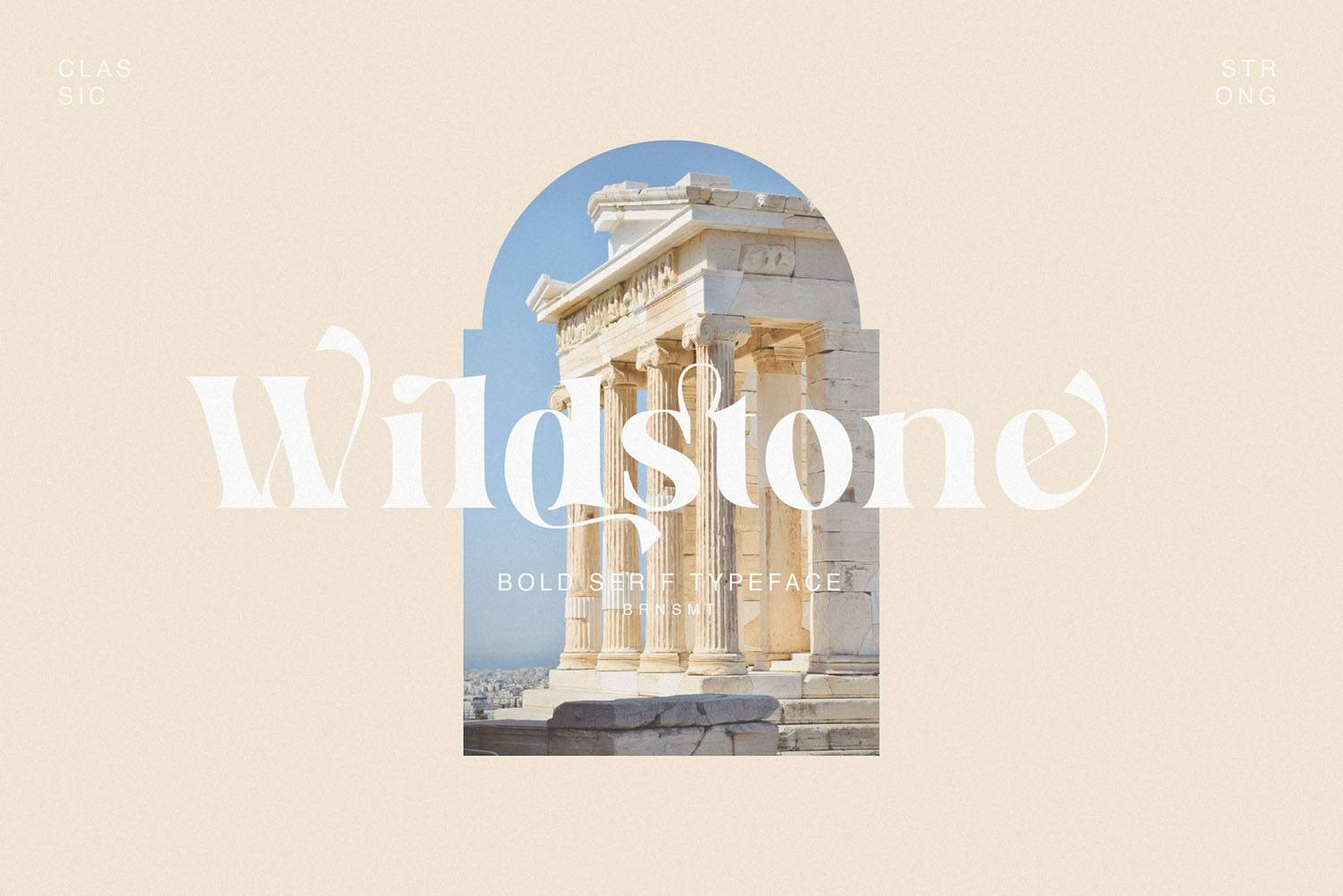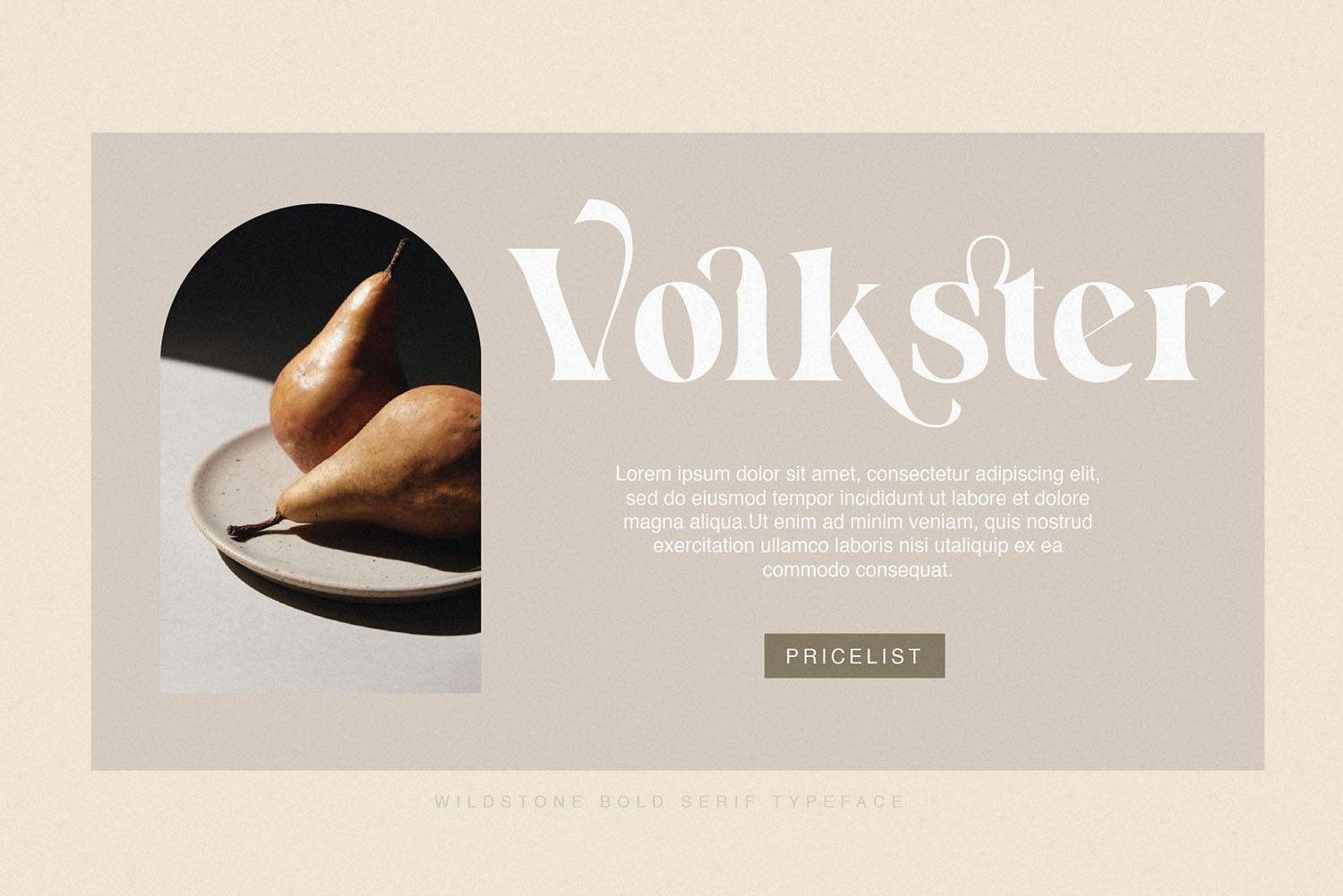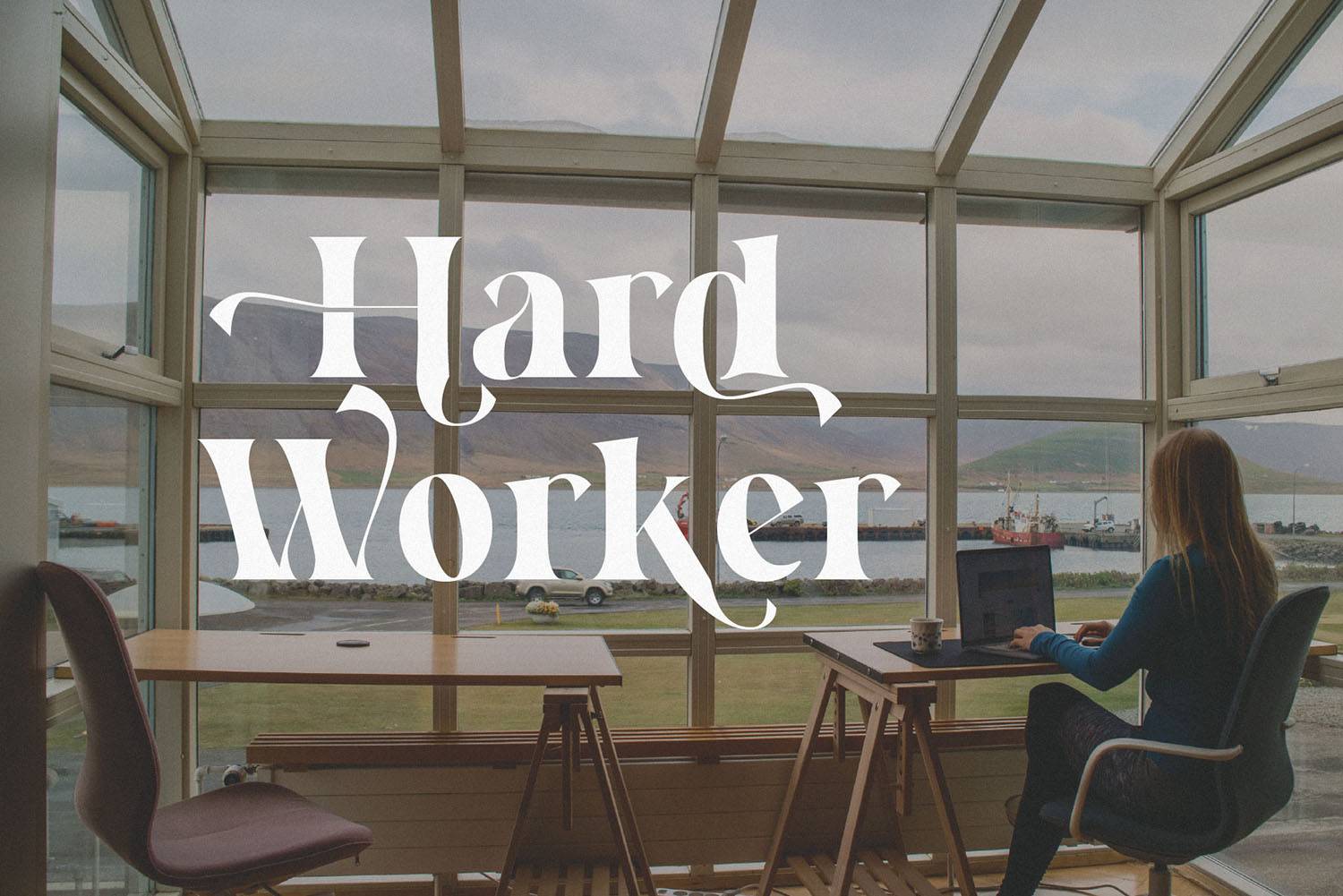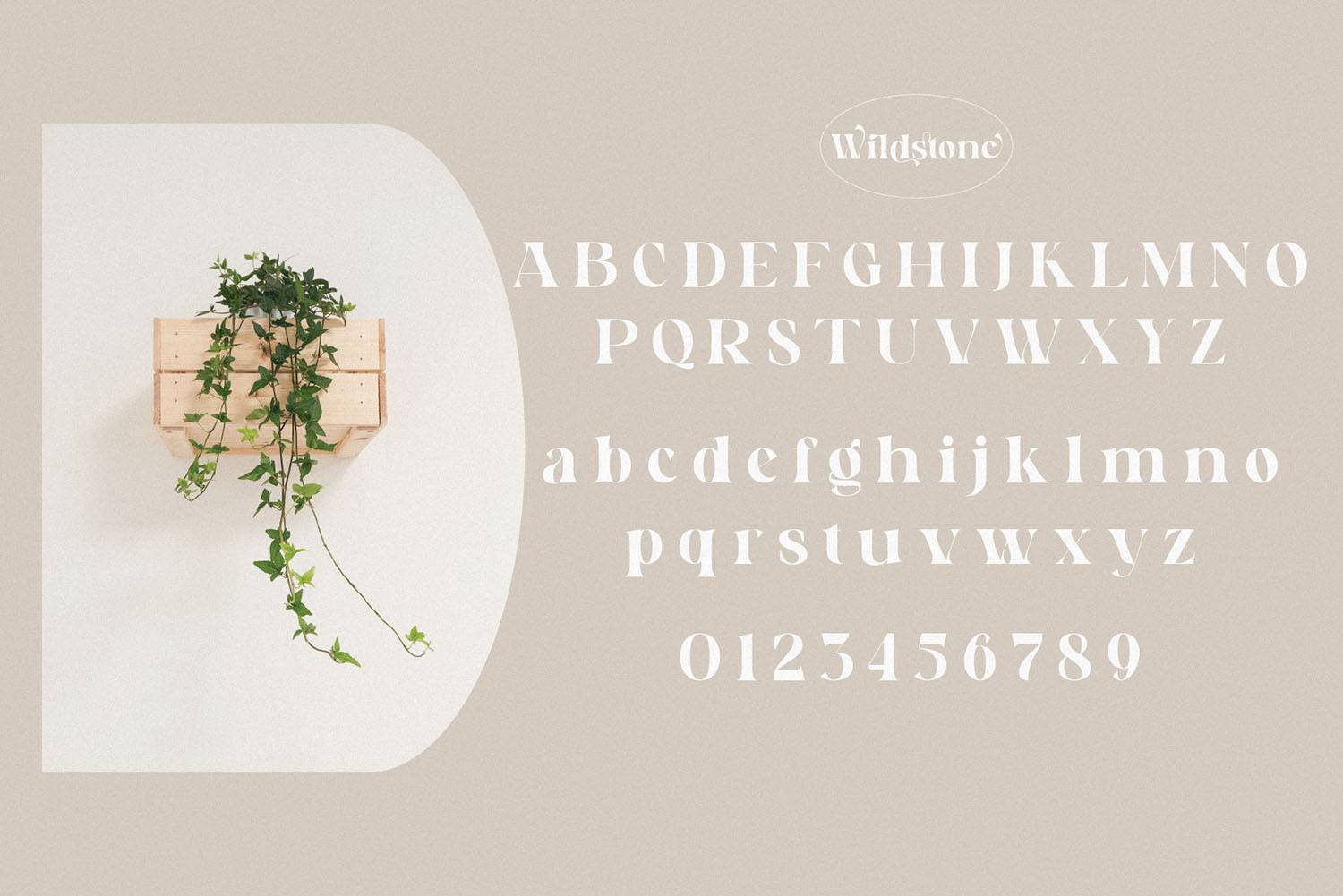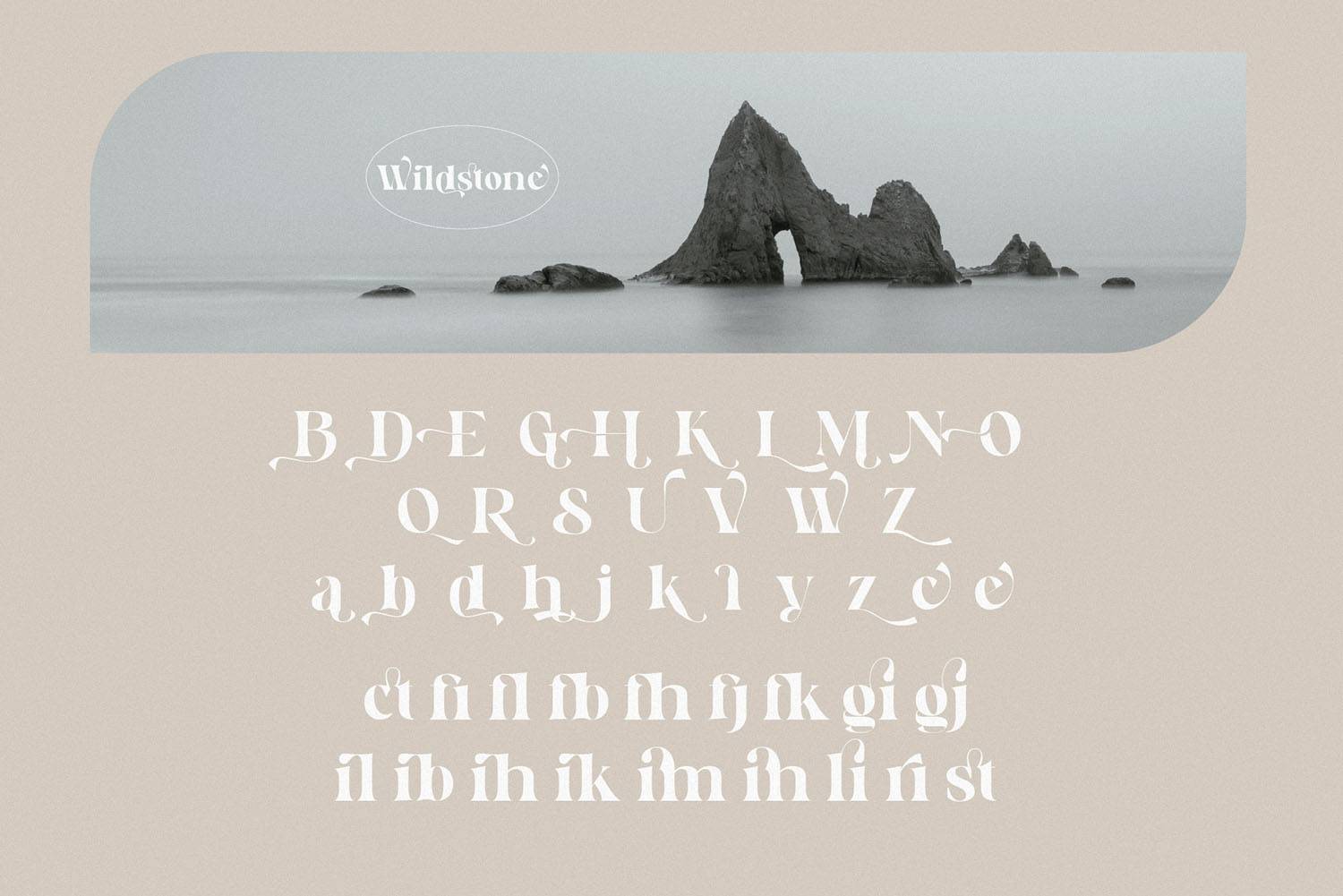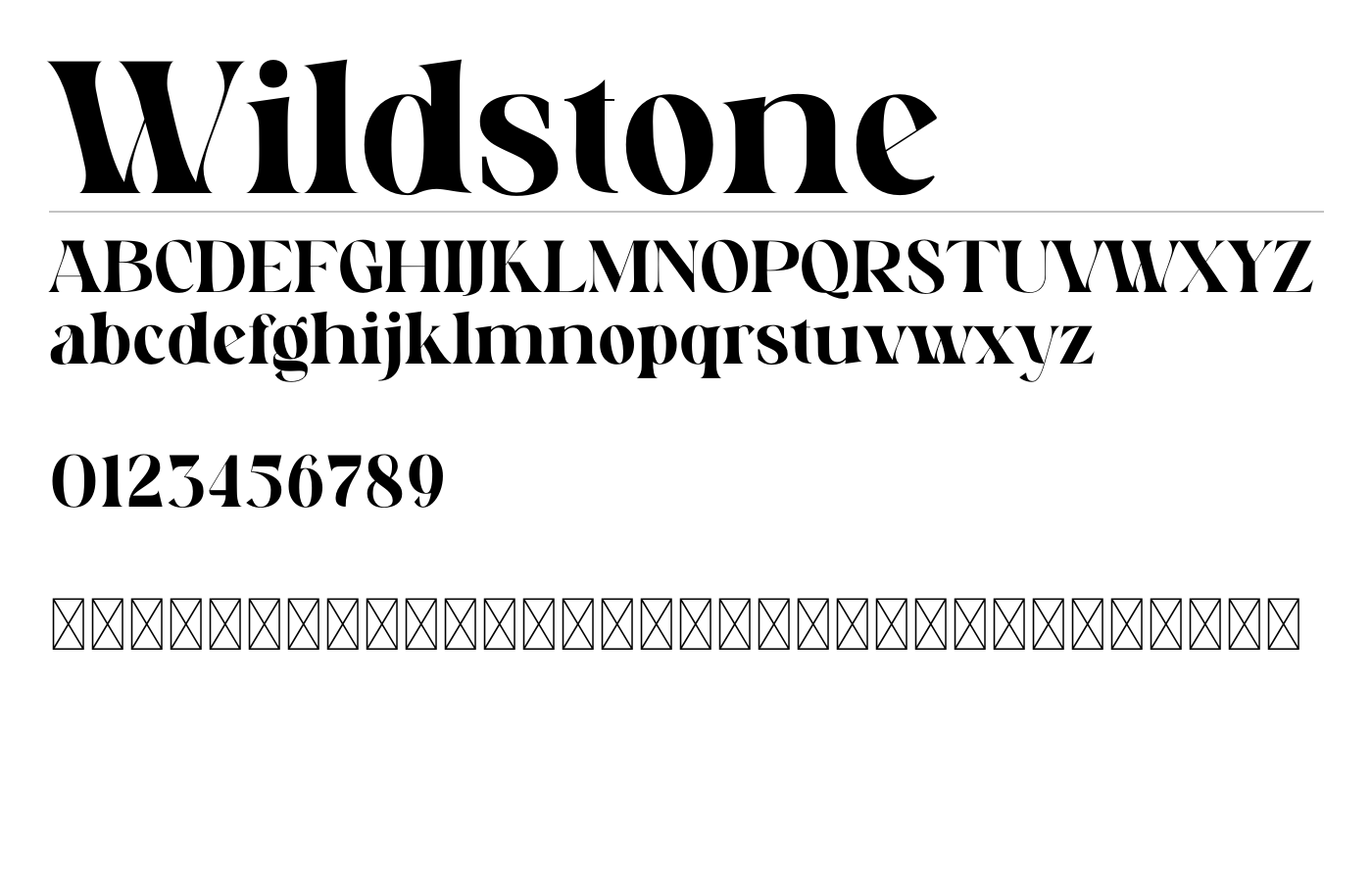
Wildstone is a bold serif font with high stroke contrast and sharp, elegant serifs that combine classic sophistication with a modern edge. Its unique letterforms and slightly condensed width make it an excellent choice for luxury branding, editorial headlines, and striking logos that demand attention and style. This font exudes confidence and refinement, perfect for projects aiming to convey elegance and distinction.
Wildstone Font
About Wildstone Font
| Font family | Wildstone Font |
| Designer | Brandsemut |